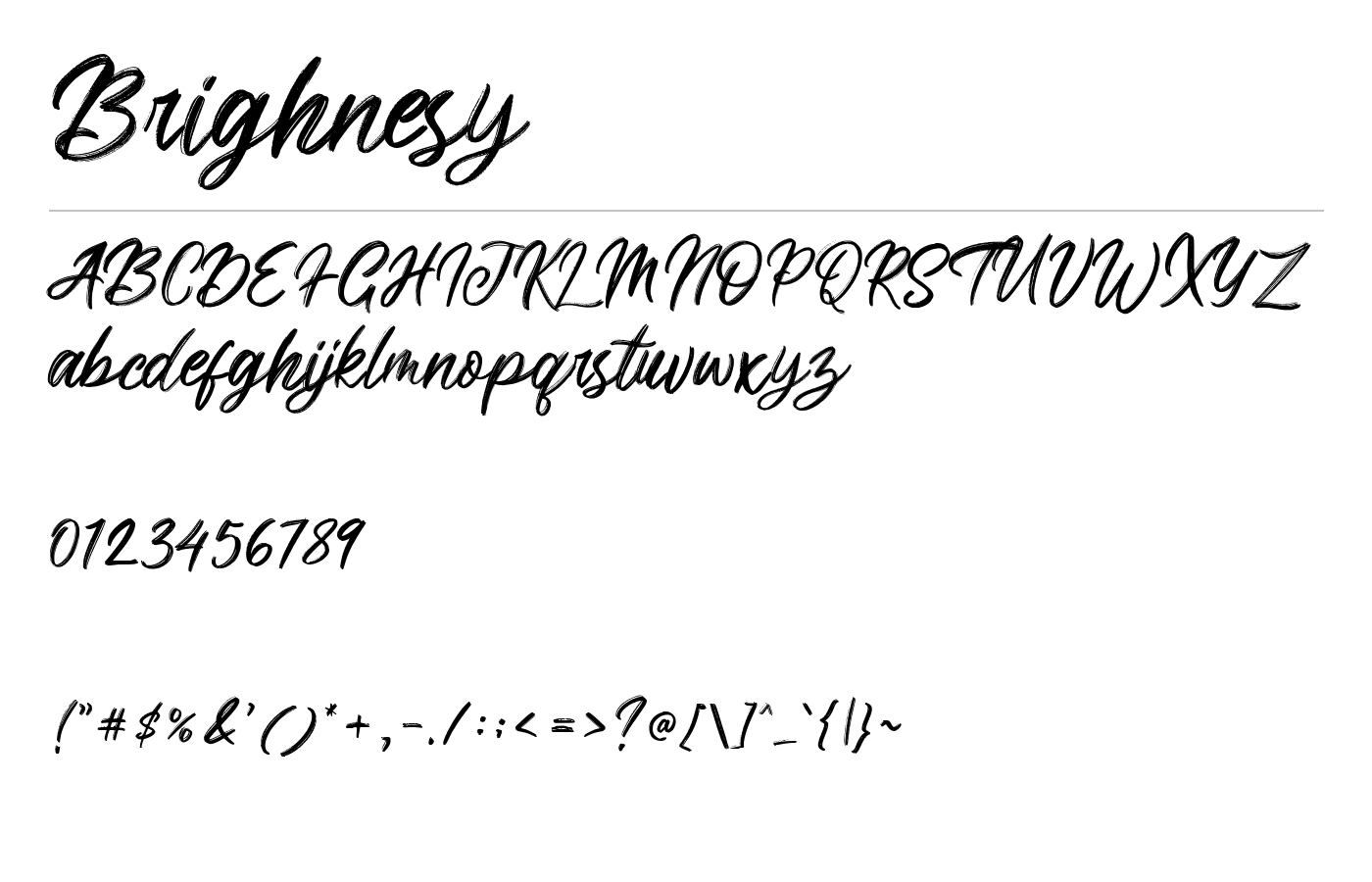
Brighnesy is a lively and elegant script font that mimics dynamic brush strokes, giving it a hand-painted, artistic feel. Its flowing, slightly textured letterforms convey warmth and creativity, making it ideal for branding, invitations, and headlines that want to express personality and flair. This font works well in design projects where a stylish, friendly, and modern handwritten look is desired.
Brighnesy Font
About Brighnesy Font